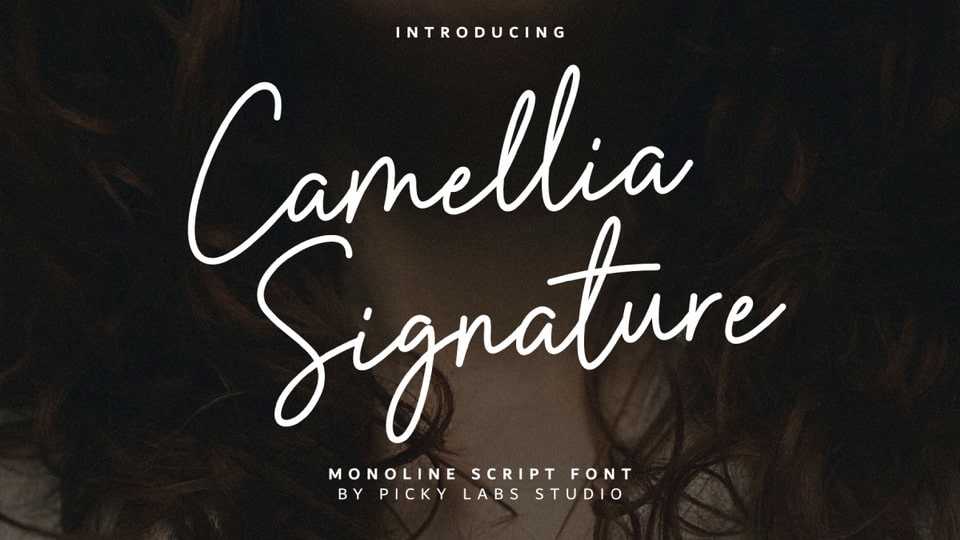
Download Camellia Signature font, a feminine signature style typeface with a monoline flow that you can use to perfect your design. Camellia Signature is designed for branding and advertising
Designer: Picky Labs